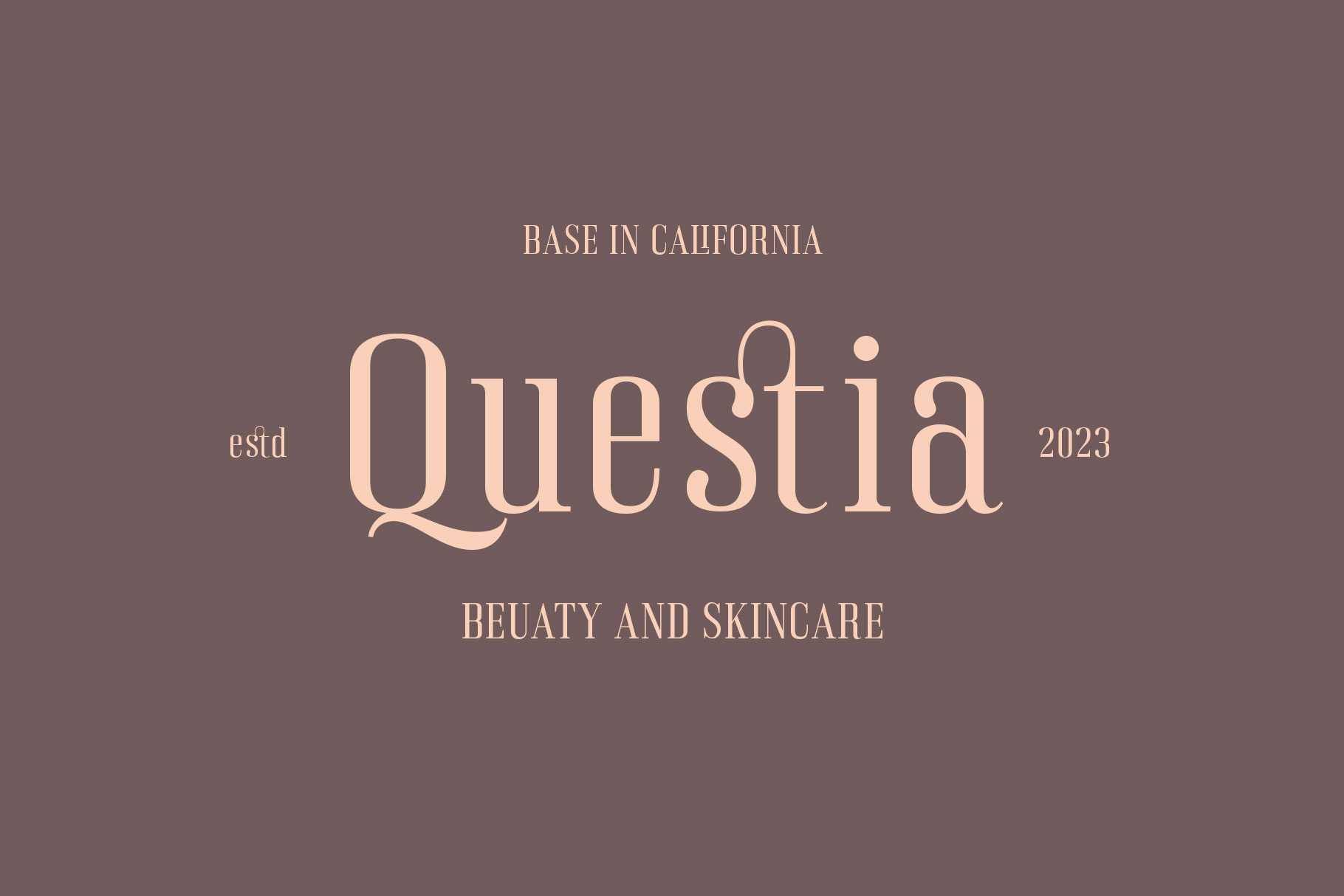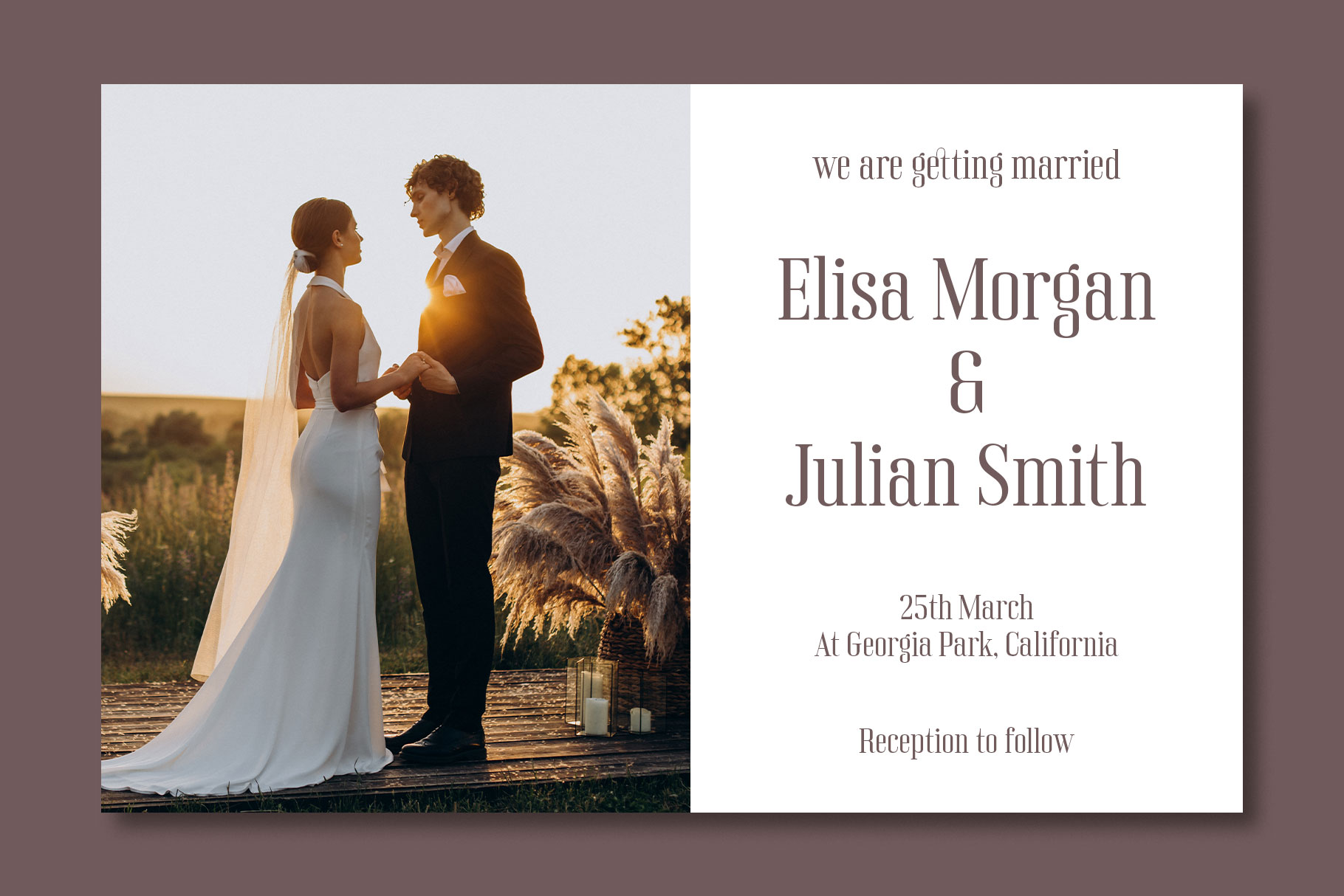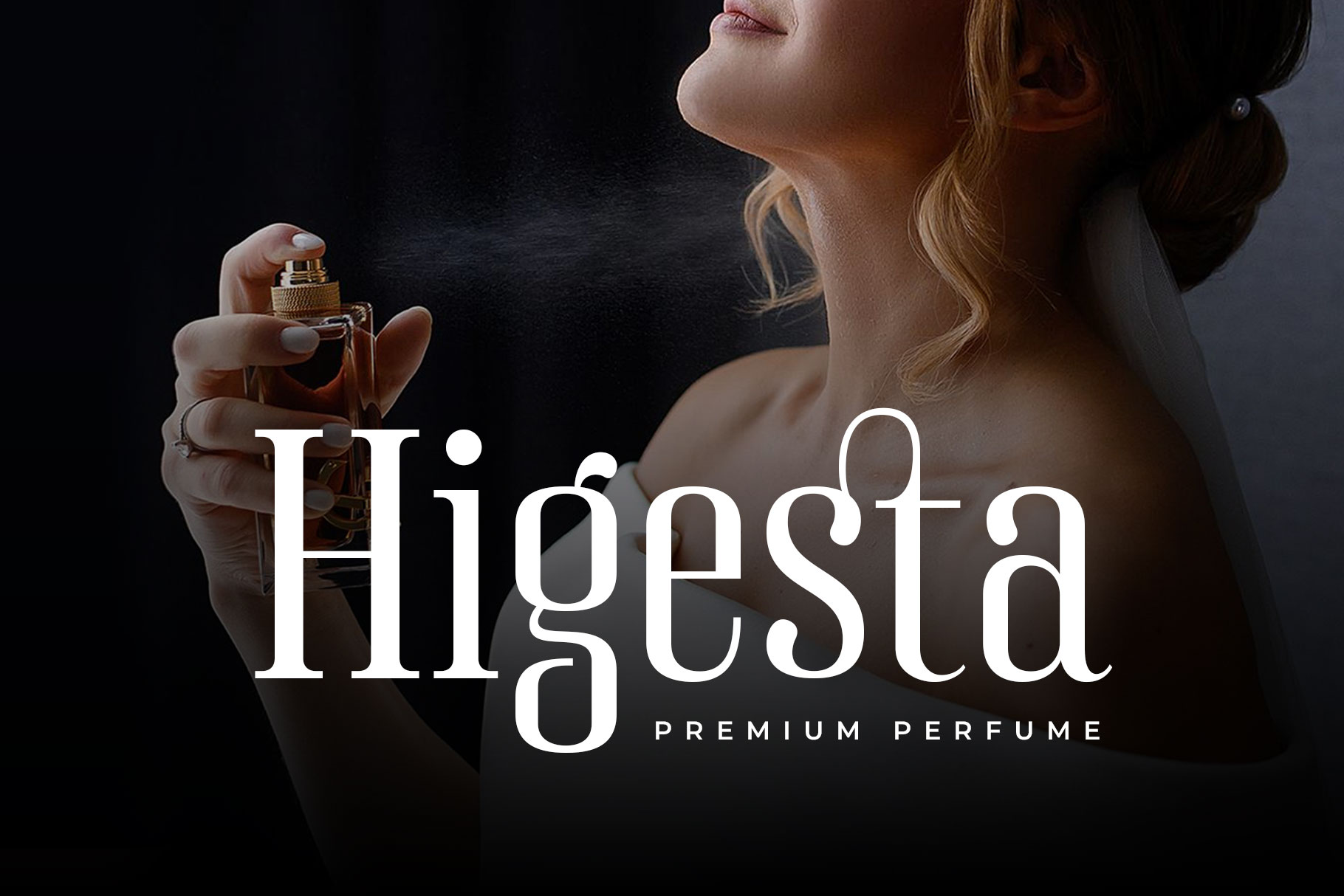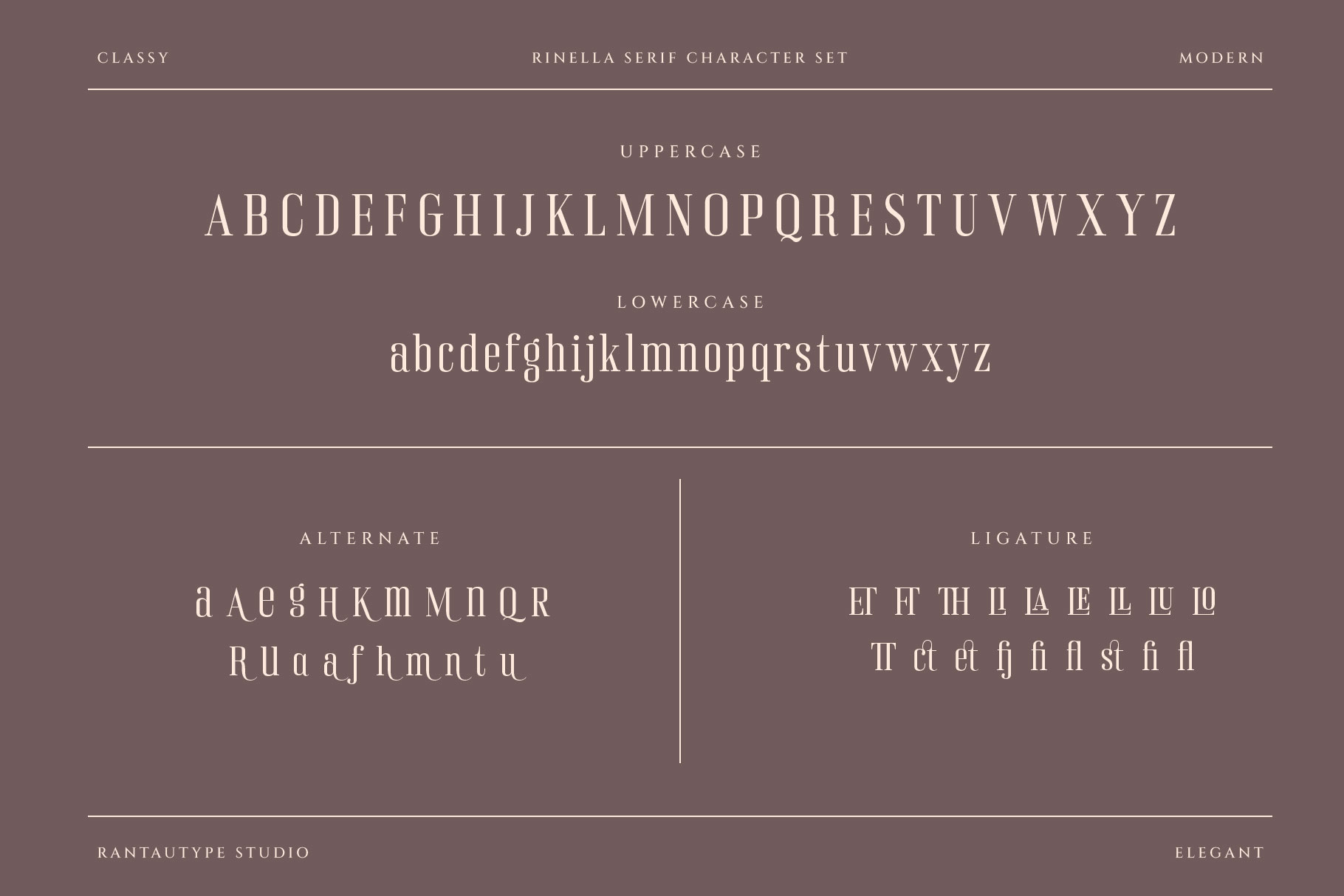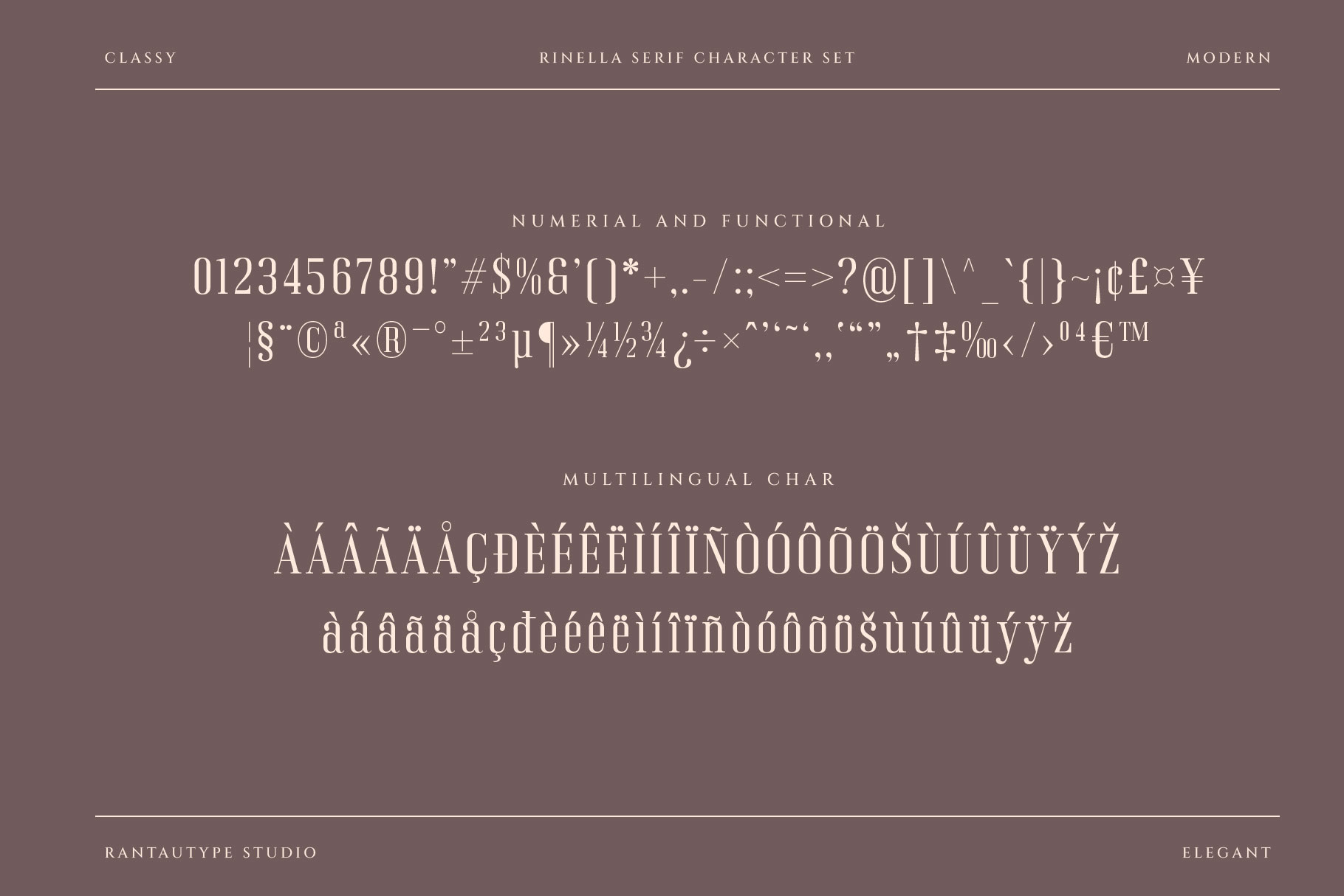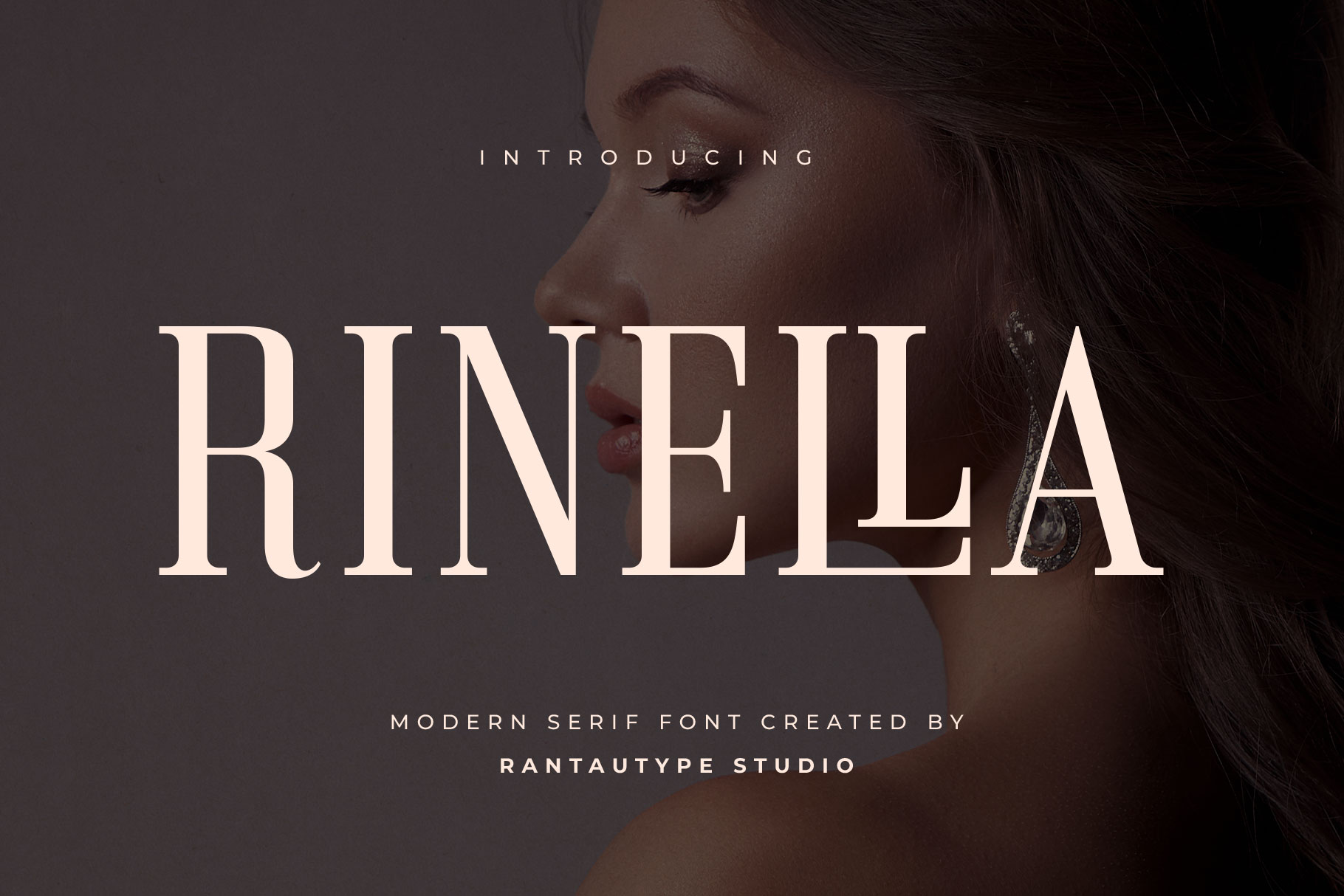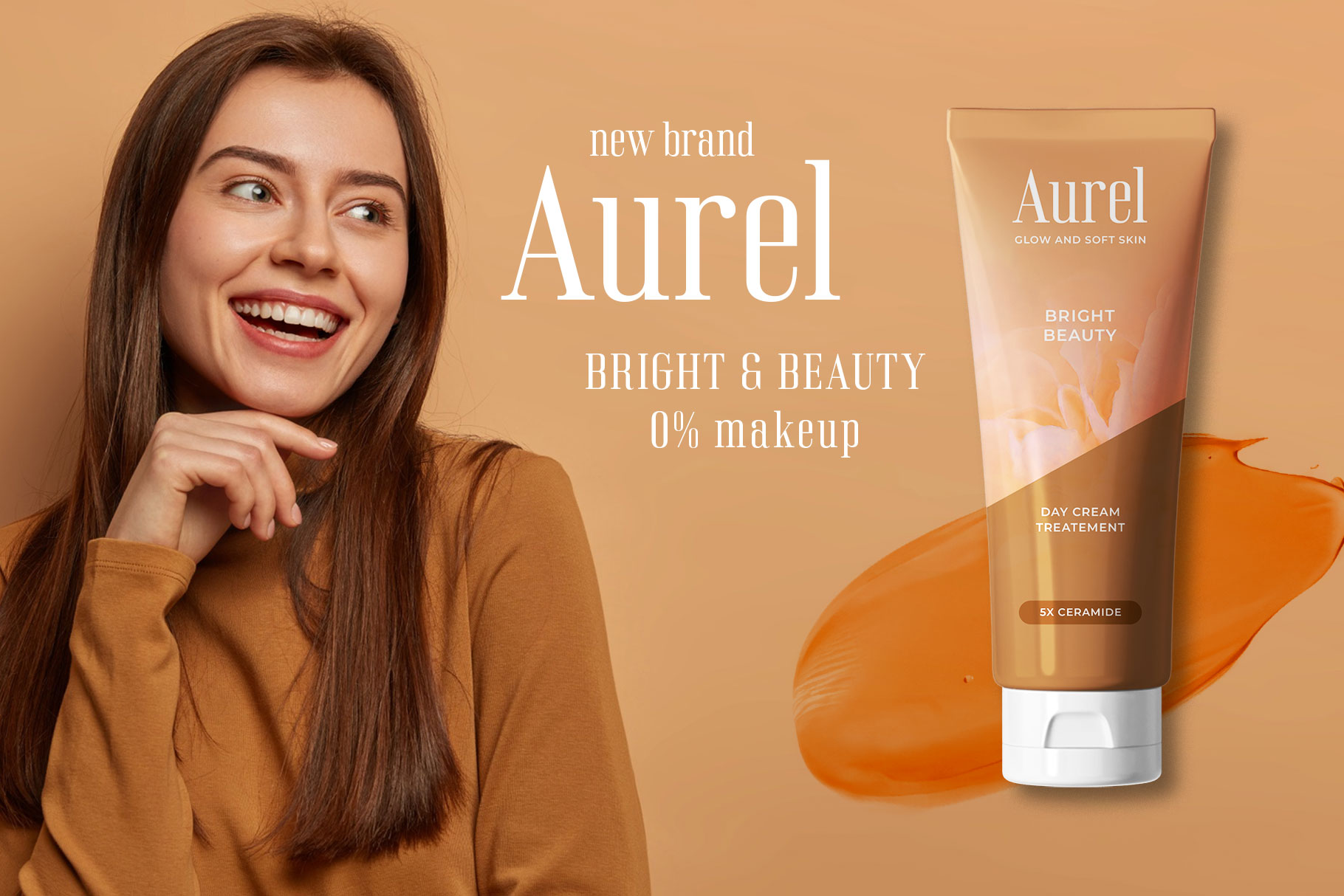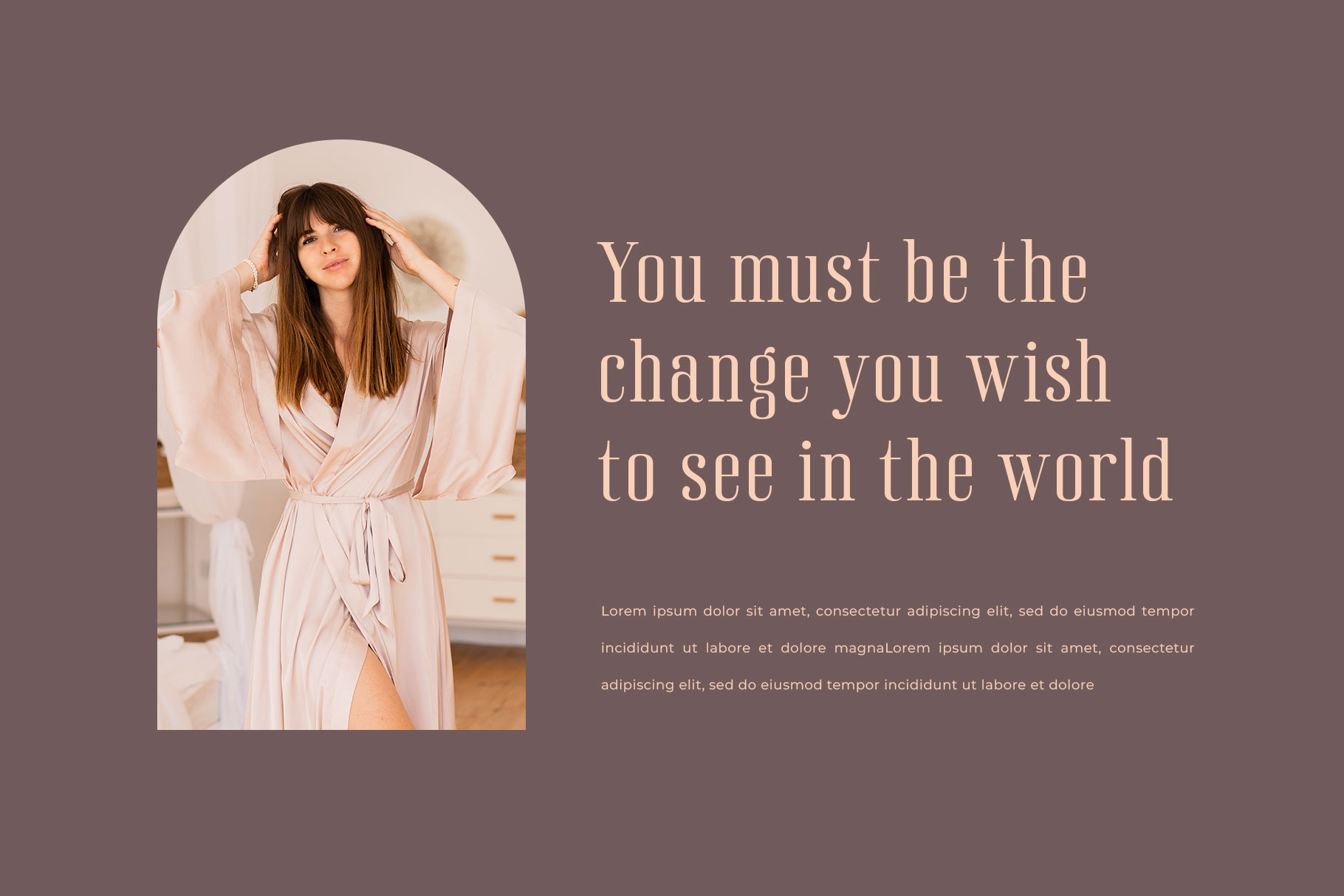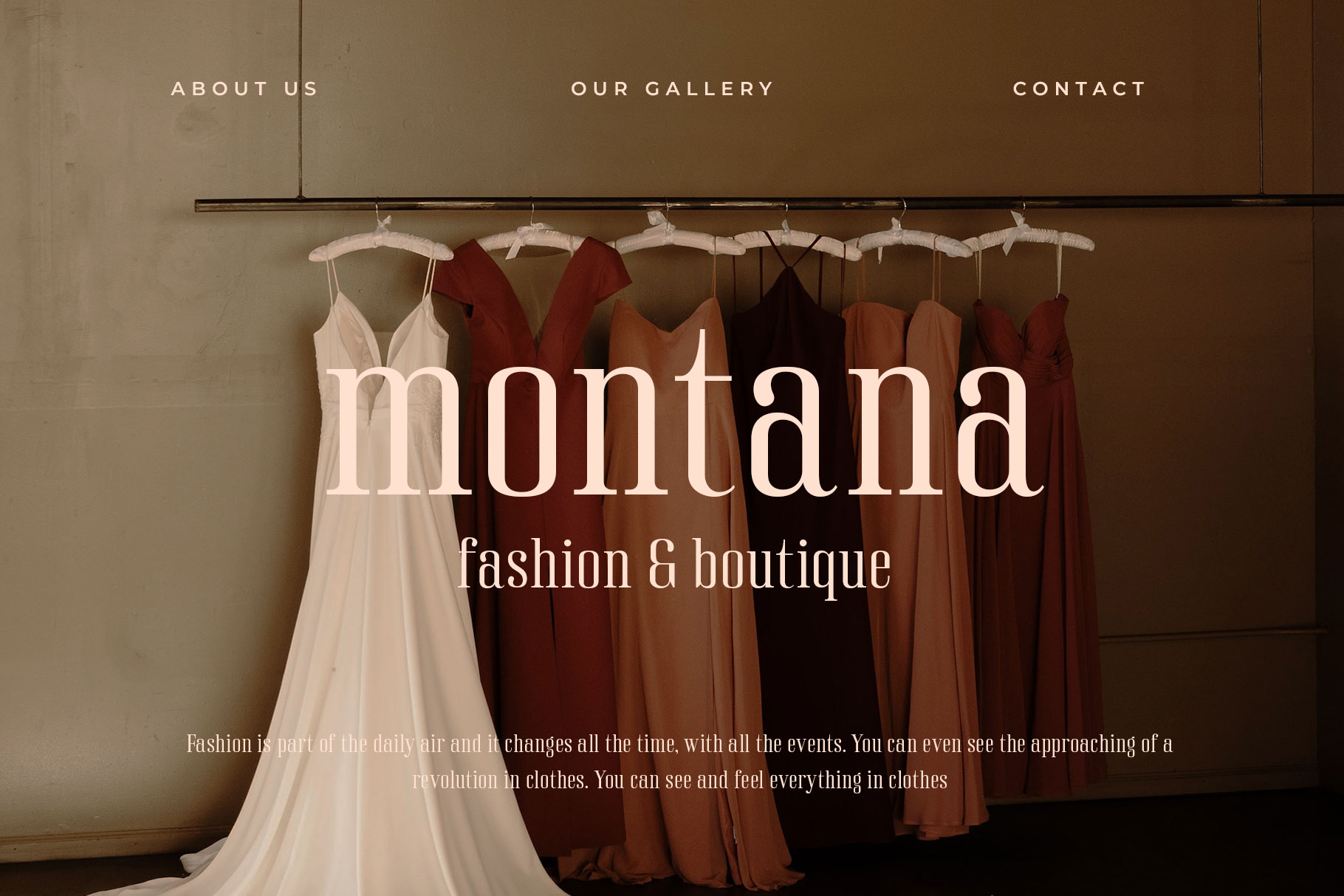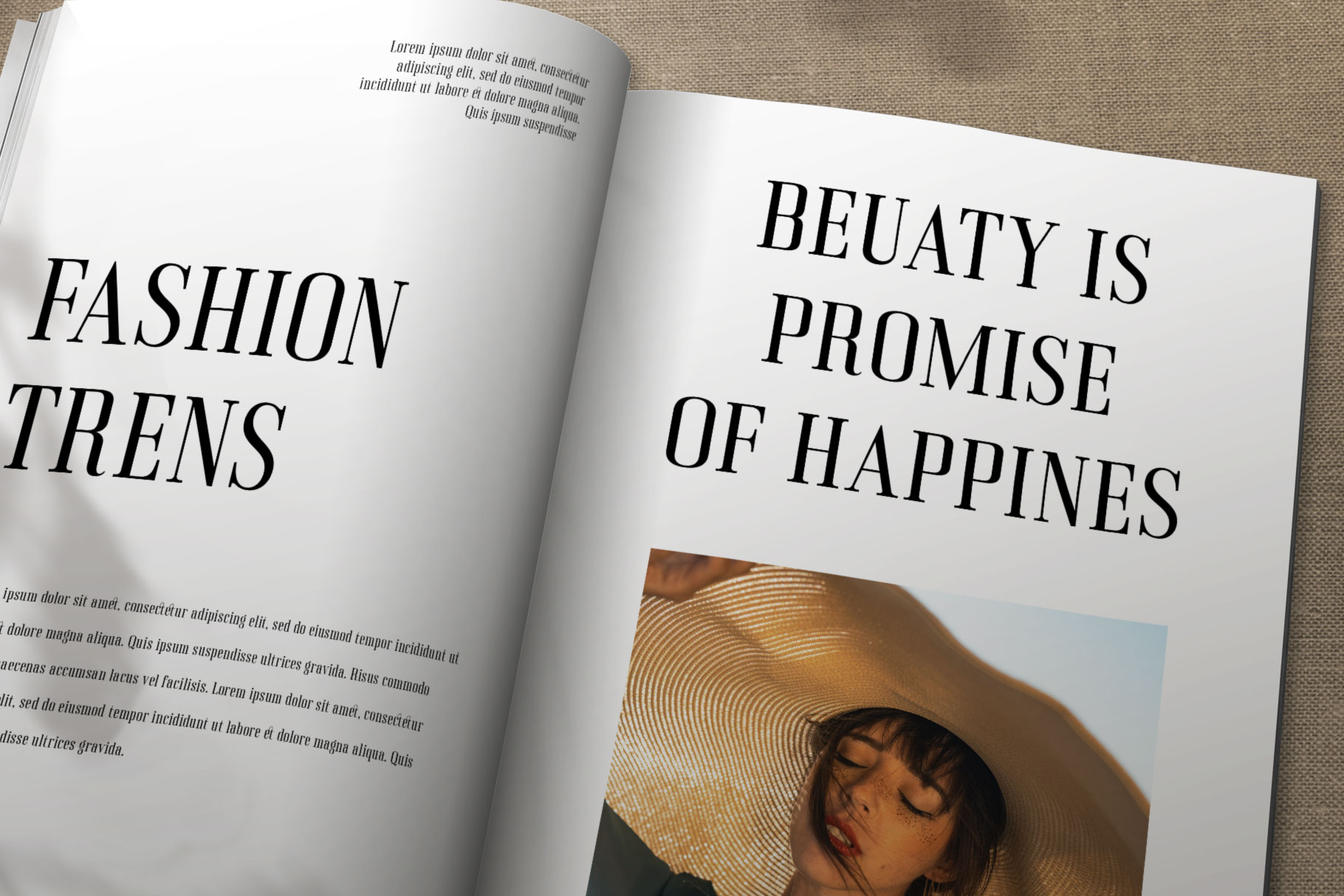
Rinella Modern Serif font
Rinella – a simple & elegant display modern serif with Sophisticated shape and have unique ligature for optional. Specially designed for fashion-themed projects, perfectly suitable for creating elegant, chic, lifestyle design such as logos, title, and magazine, and more. Now you have more choice when using Rinella  for typography. Rinella  here to make your work to high level!!!